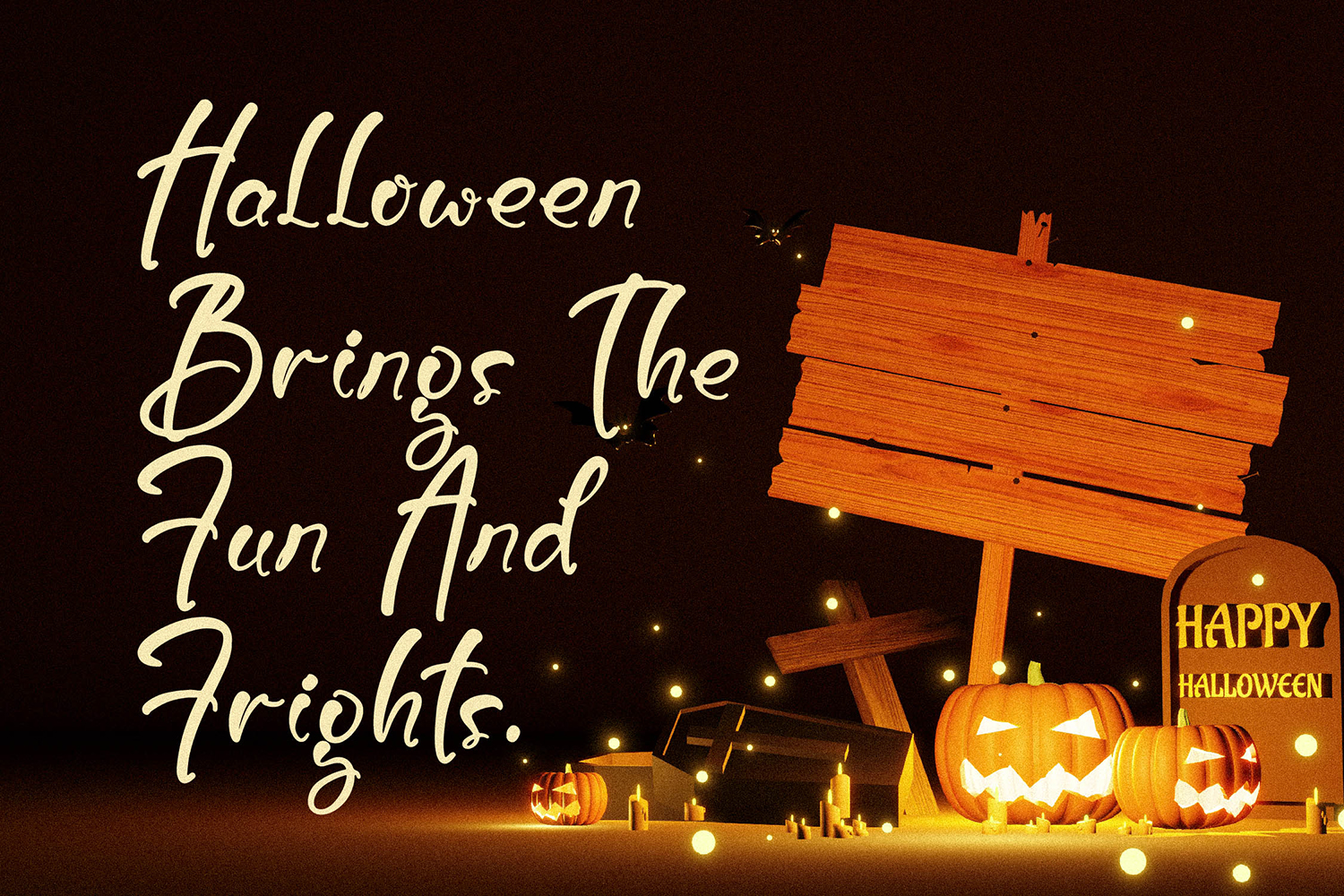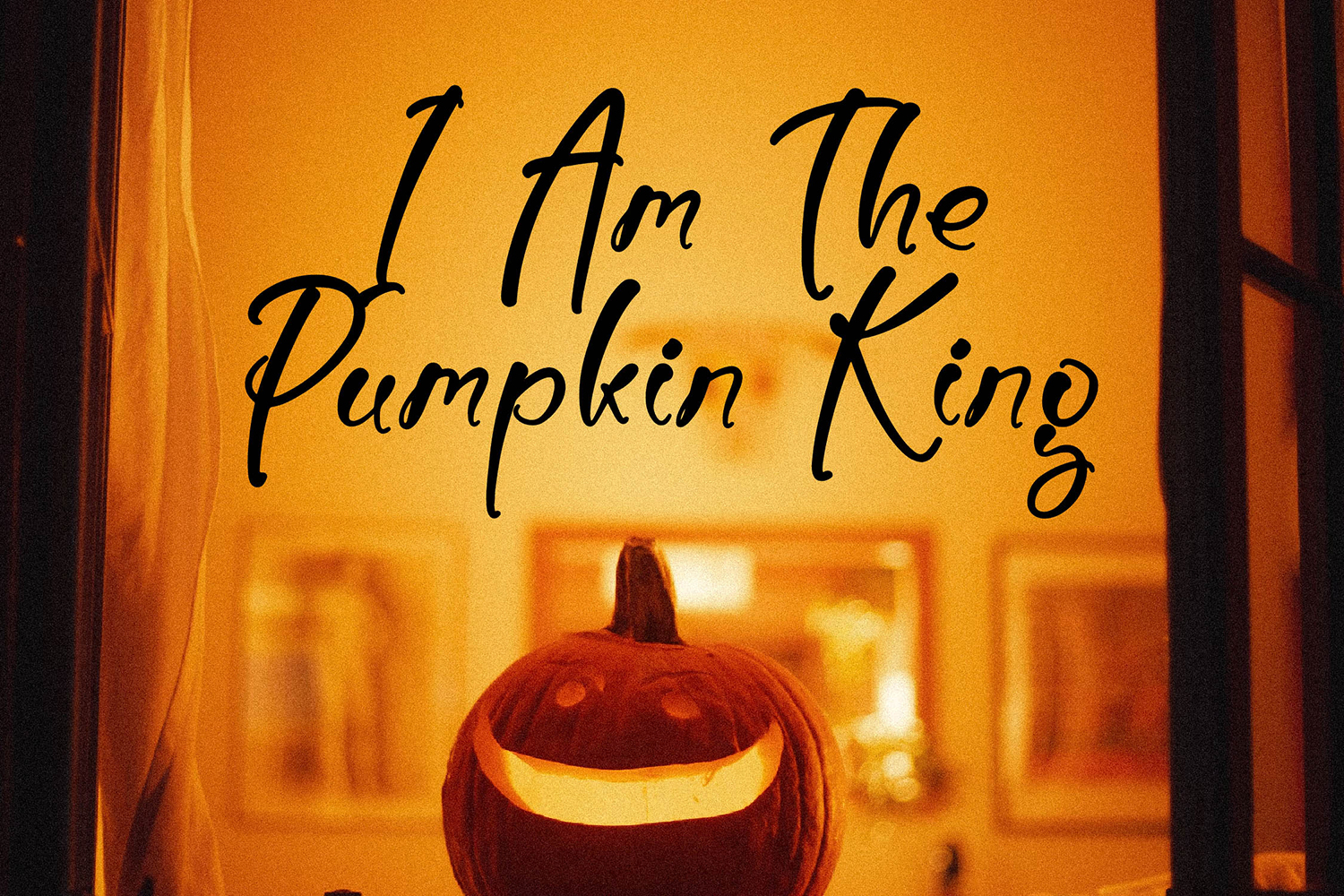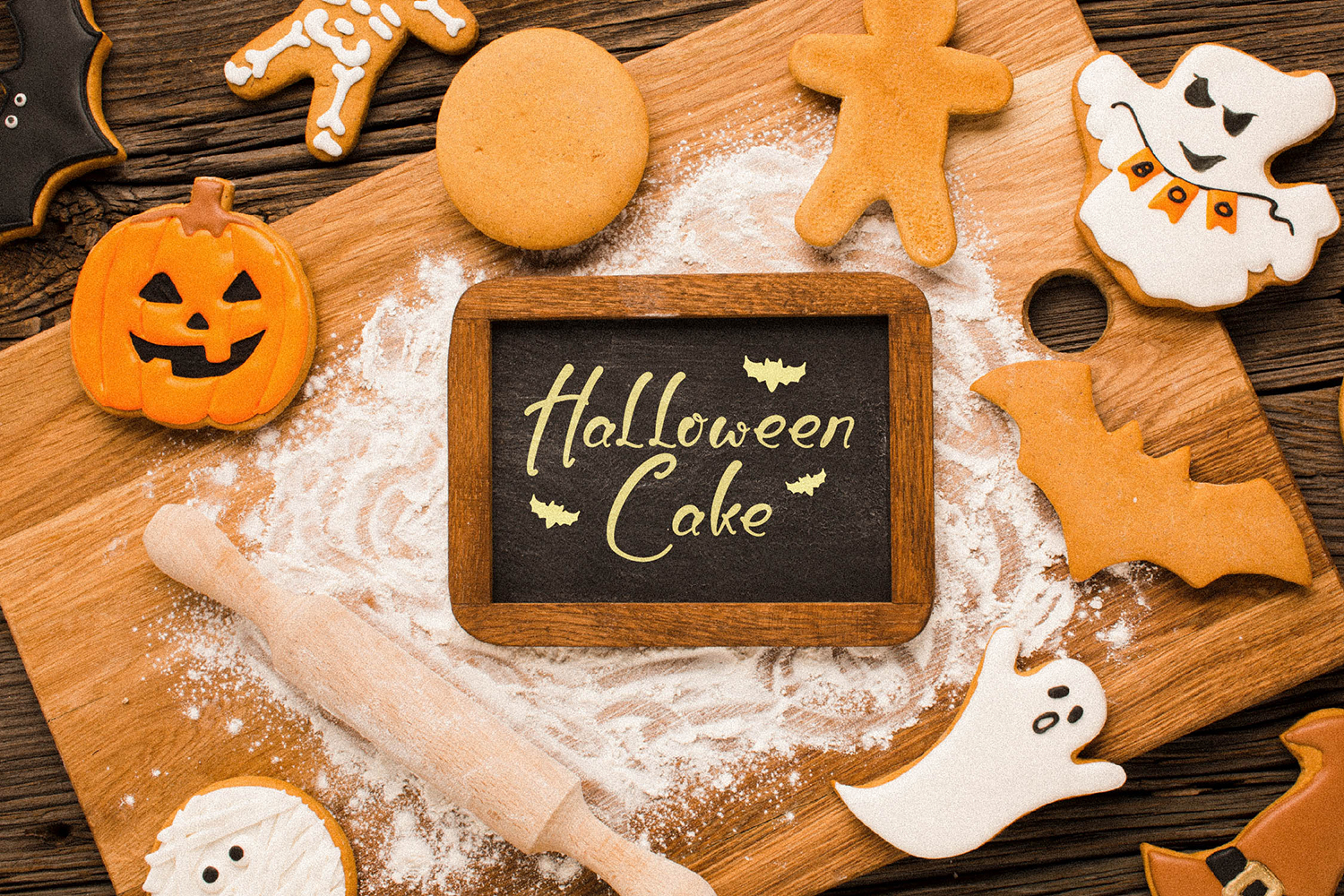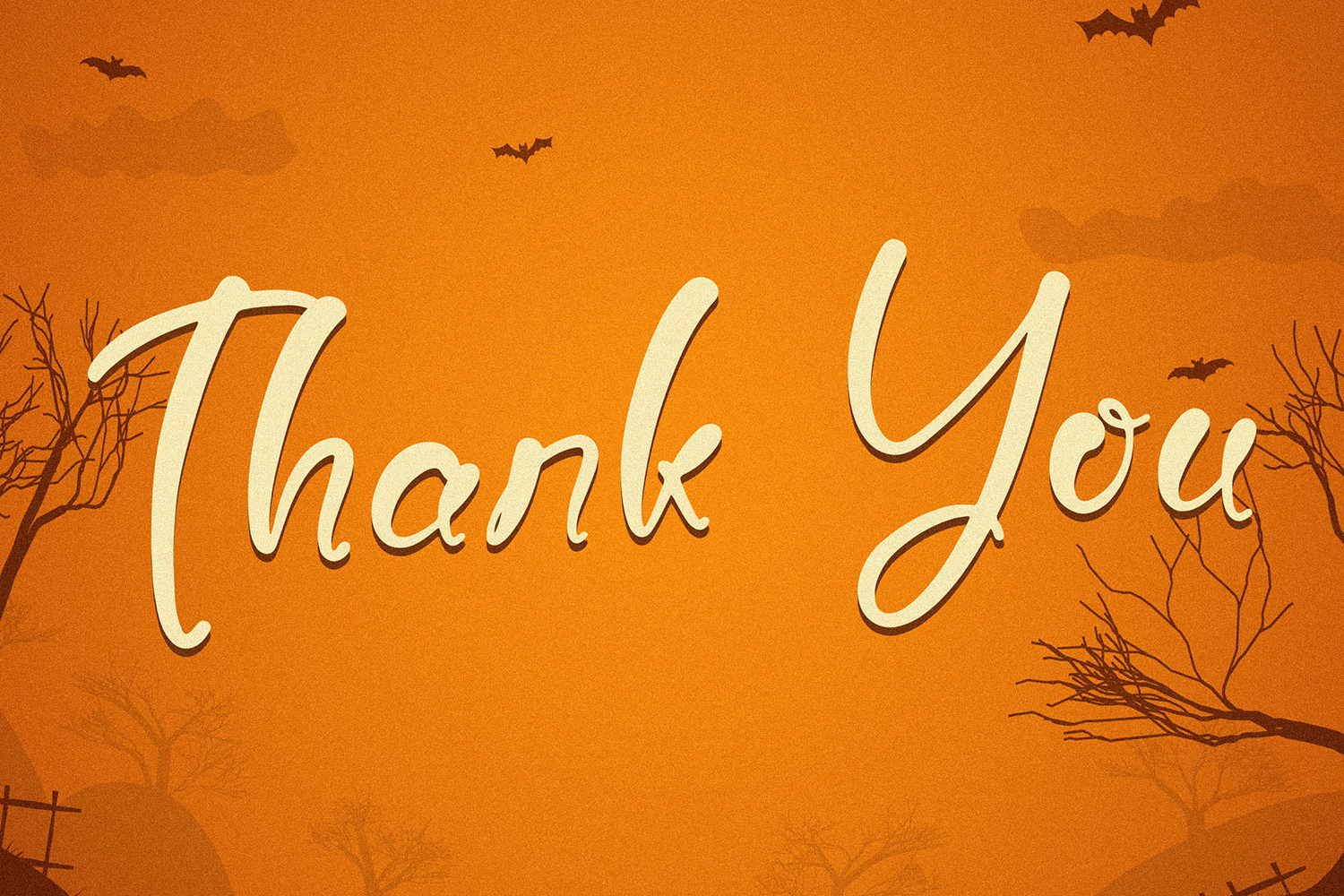
Burtons Ghoster Free Font
Introducing Burtons Ghoster Free Font – a hauntingly elegant handwritten font, perfect for a wide range of creative projects. Whether you’re working on logos, branding projects, homeware designs, product packaging, mugs, quotes, posters, shopping bags, t-shirts, book covers, name cards, invitation cards, greeting cards, labels, photography, watermarks, or planning special events, this font will add a touch of beautiful script to all your endeavors. Embrace the captivating allure of Burtons Ghoster and elevate your projects with its ghostly charm. This free typeface was designed by a talented Glorytype Studio. If you like it don’t forget to check out the full version.